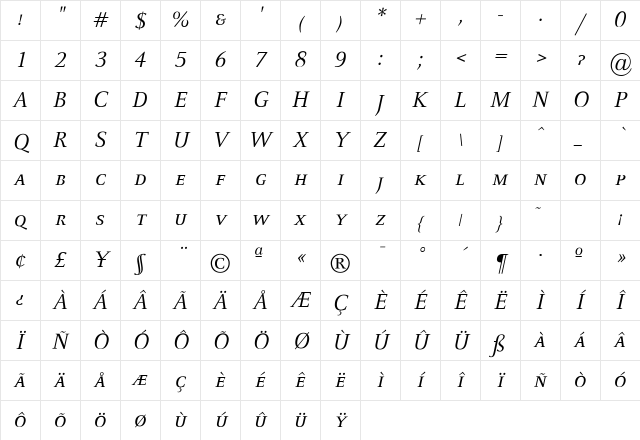
Complete CelesteCaps Italic glyph index. Displaying only characters natively supported by CelesteCaps Italic font.
CelesteCaps is a composed and adaptable typeface that performs quietly and consistently across a wide range of design contexts. The slanted form adds forward momentum and visual energy.
Pro Tip: Use CelesteCaps for emphasis, pull quotes, and subheadings where its slanted energy can add rhythm to the layout.